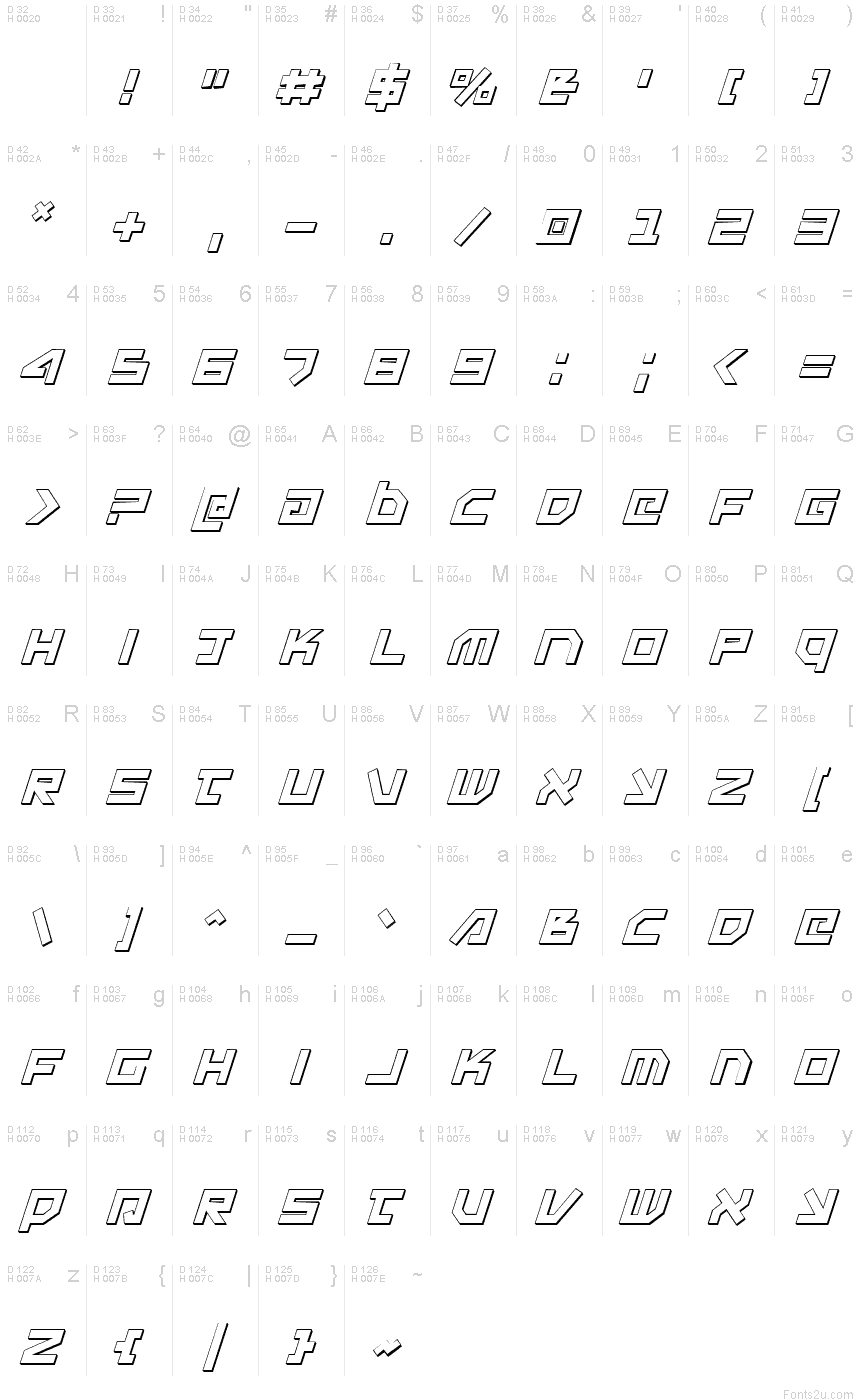
Uno Estado 3D Italic from Iconian Fonts is a free futuristic outlined display font with broad, sharply slanted letterforms. Its doubled contours and offset edges build a low, mechanical 3D effect.
A racing poster is its most convincing setting because the forward lean and cutaway geometry suggest speed and engineered surfaces, and those qualities also fit esports branding, arcade game graphics, and motorsport merchandise. It is aimed squarely at audiences drawn to science fiction, competitive gaming, and custom vehicle culture.
Uno Estado 3D Italic